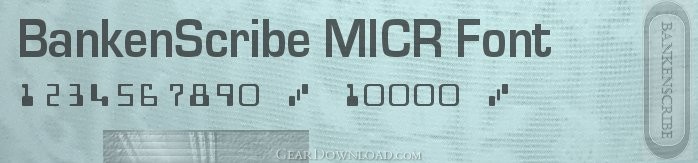
Font MICR BankenScribe - BankenScribe MICR Font enables the preparation of automated financial documents.
BankenScribe MICR Font for E13B is based on the ISO 1004 standard. It is used for printing the MICR Line located at the bottom of checks. The MICR Line may contain information such the account number, routing and transaction codes.
BankenScribe font meets the strict requirement of US and International standards required for automatic check processing. It is the ideal choice for MICR encoding and financial document printing.